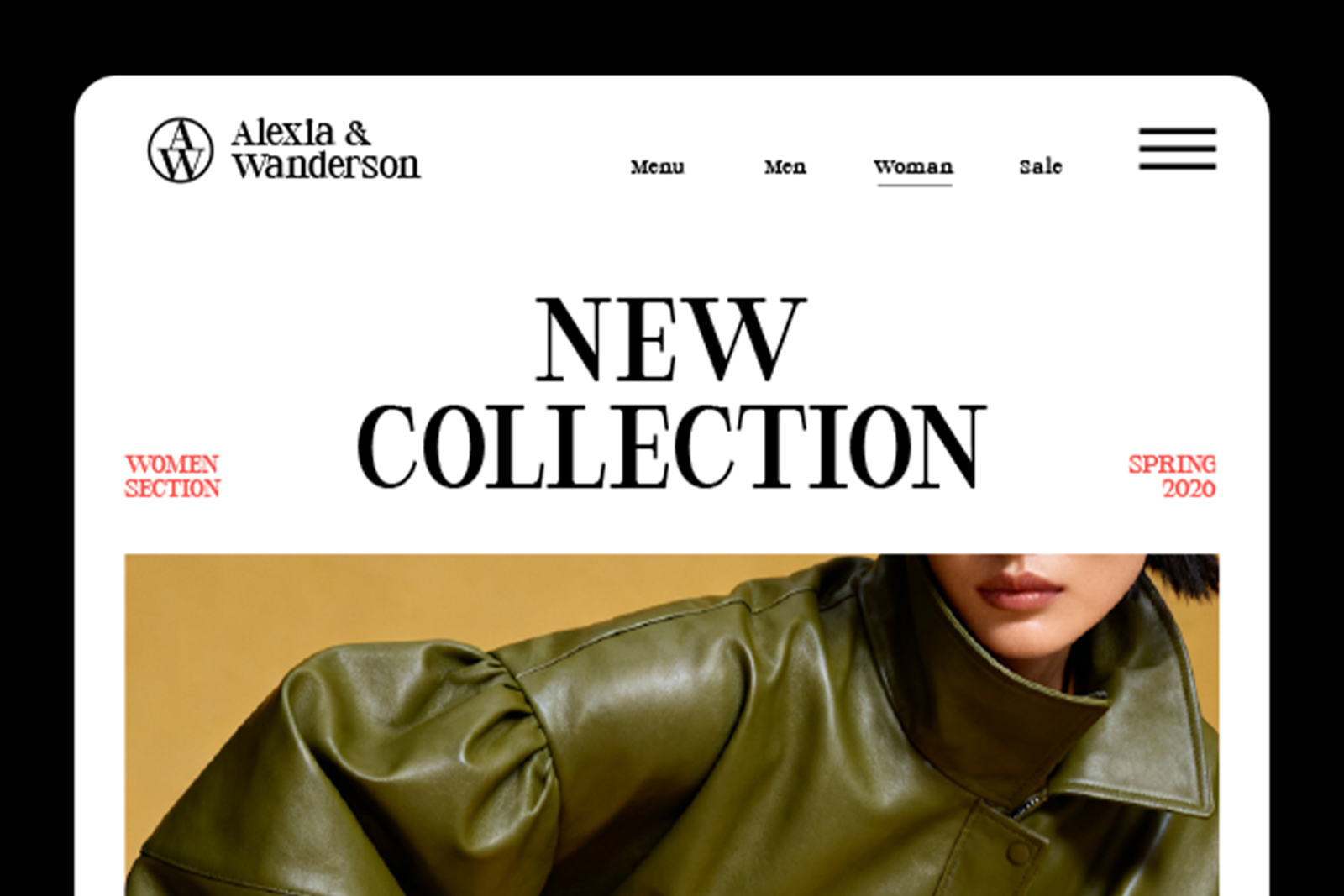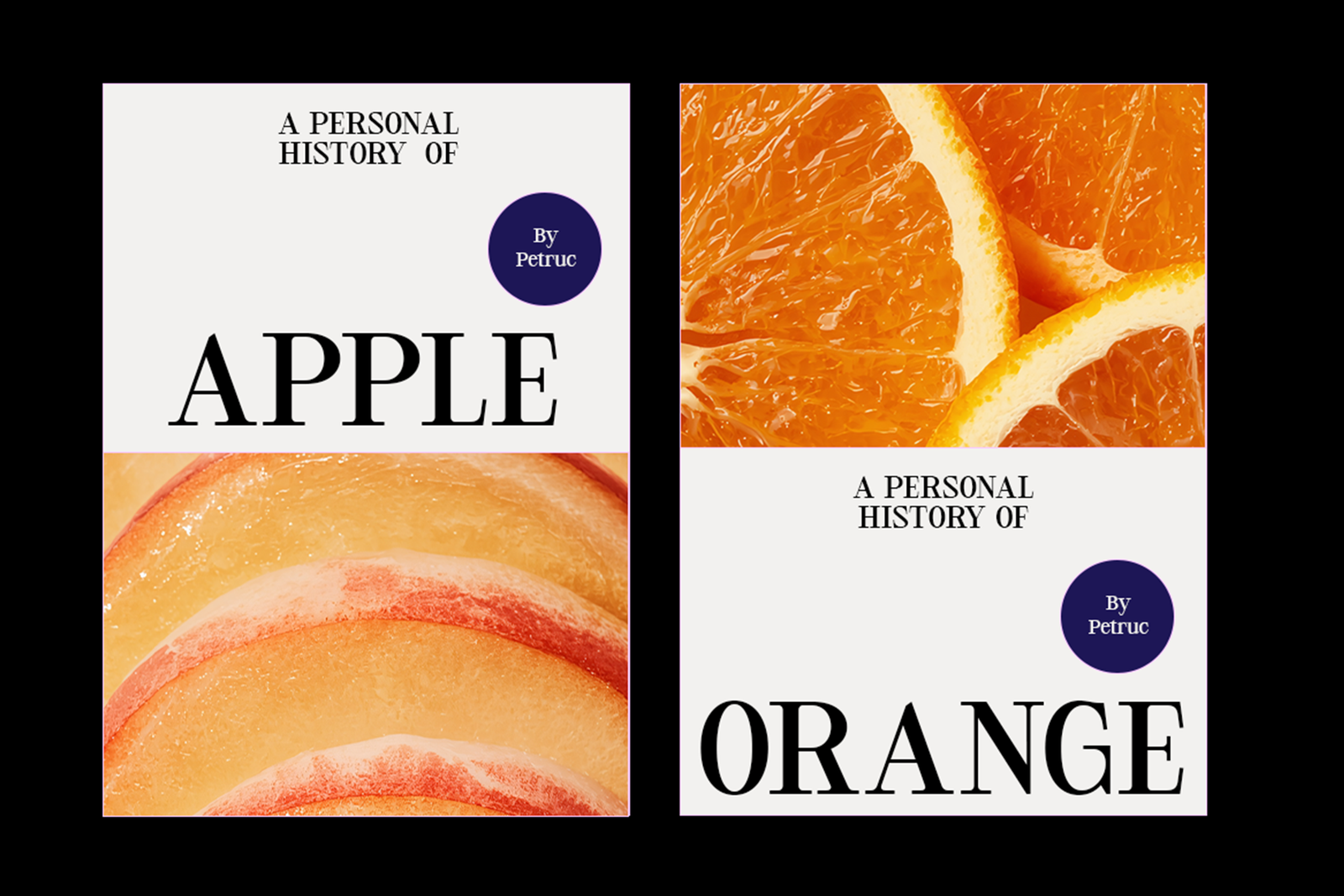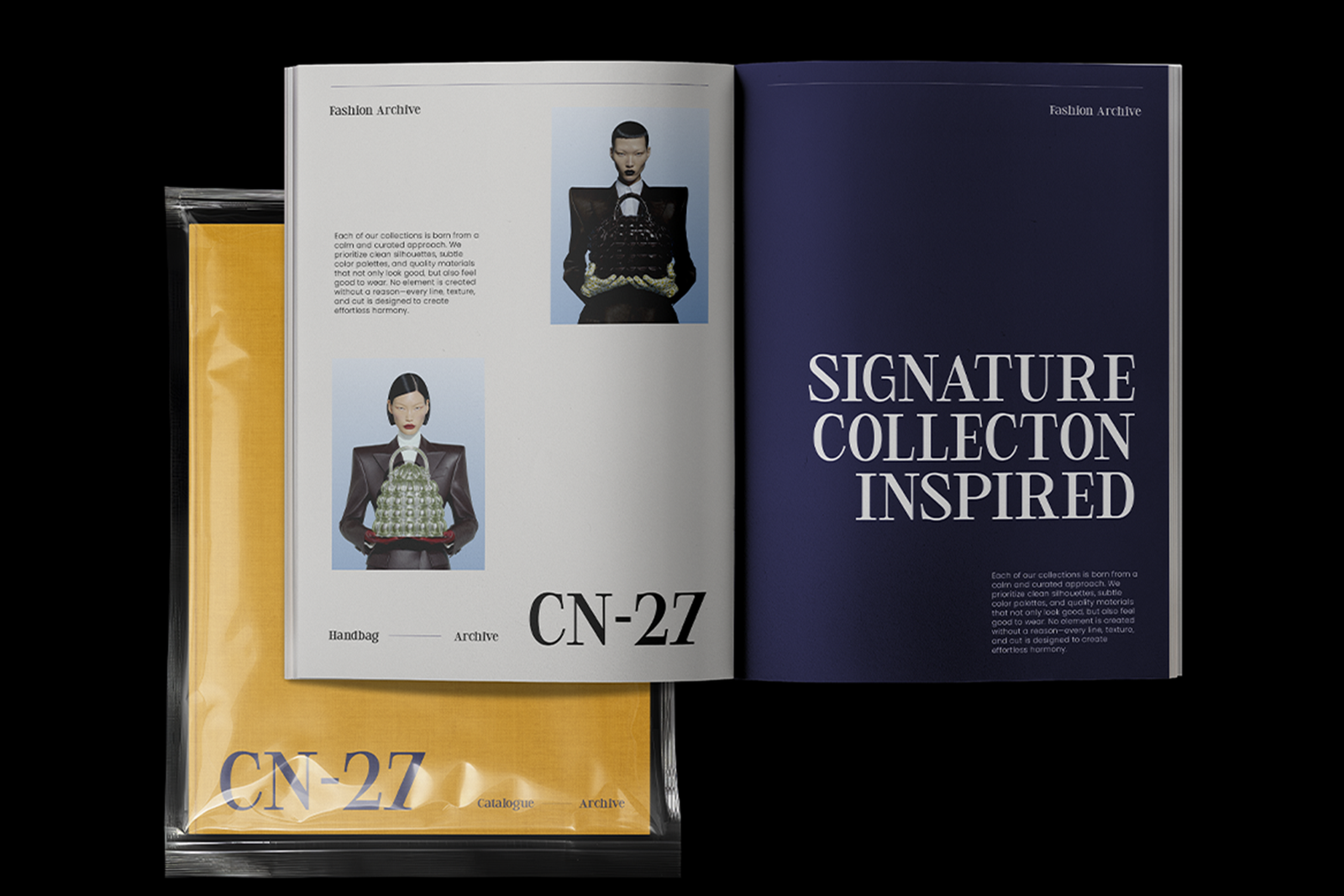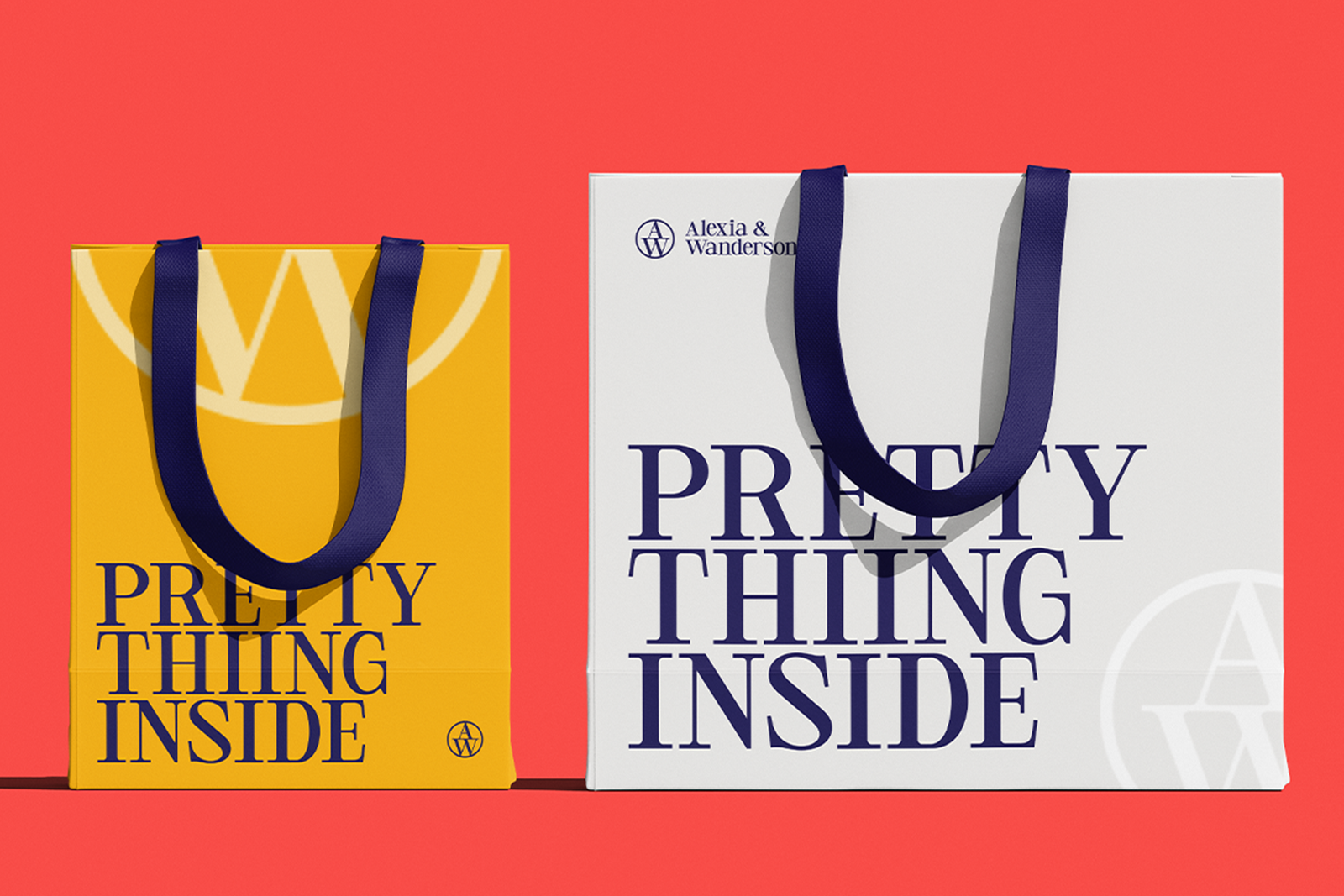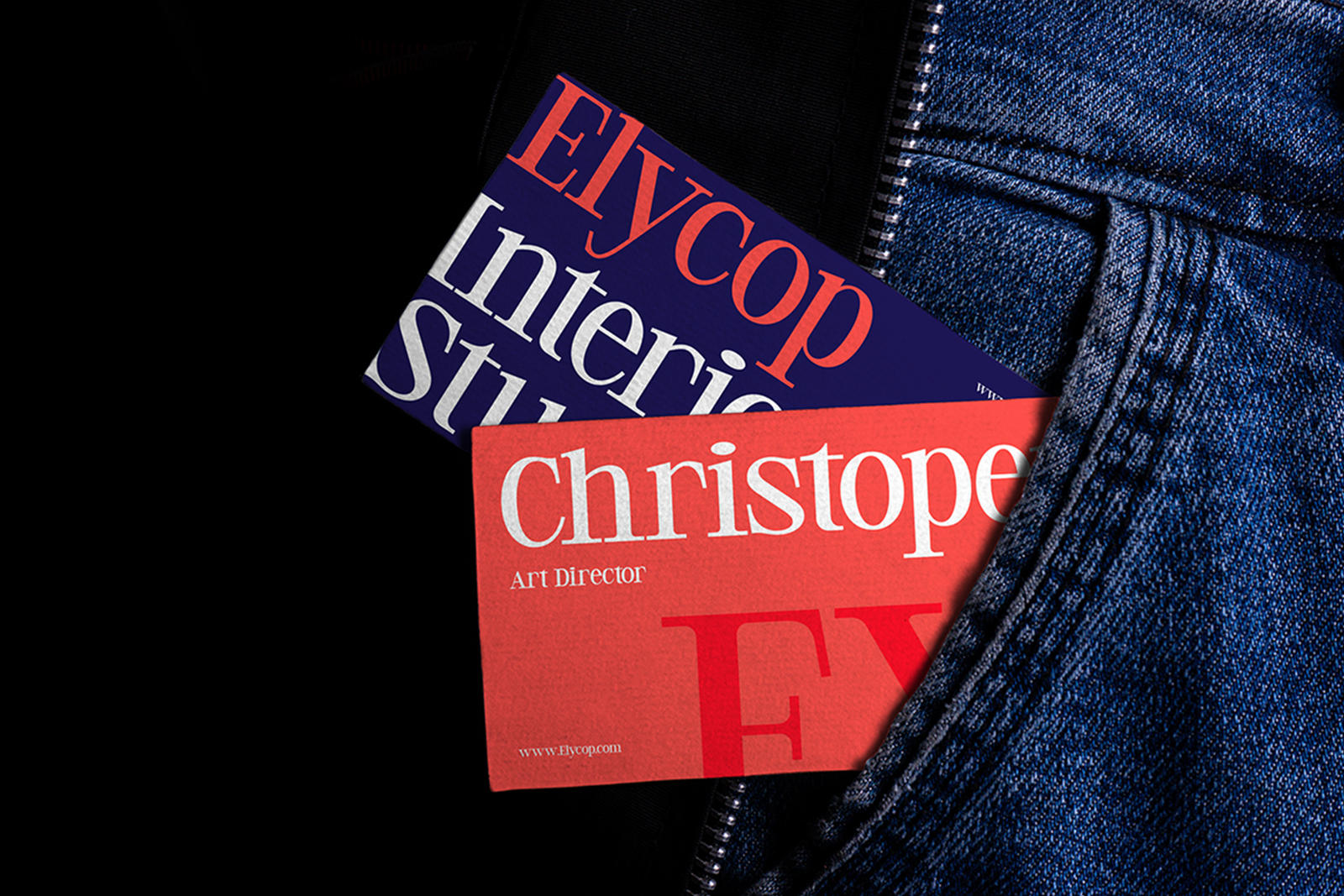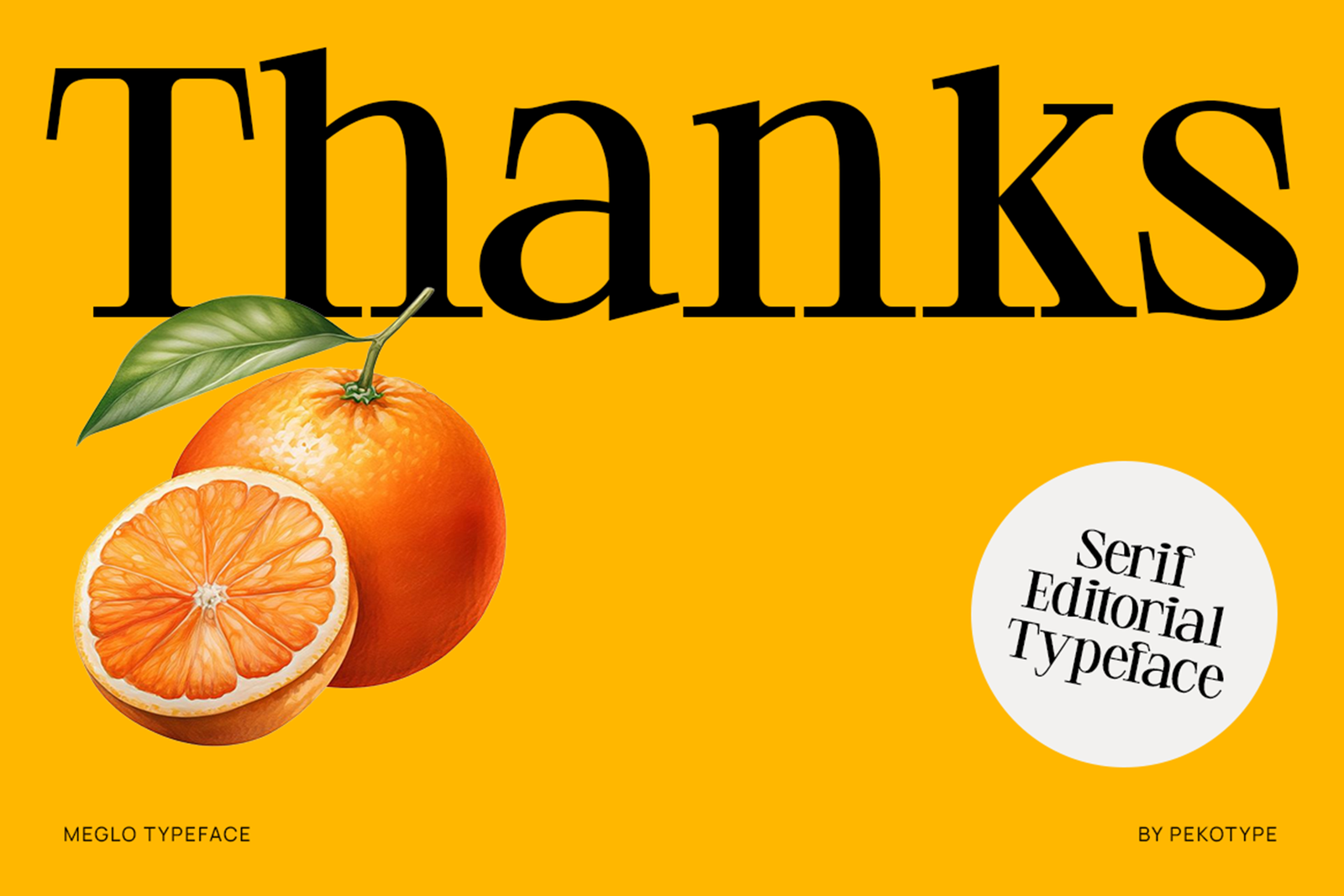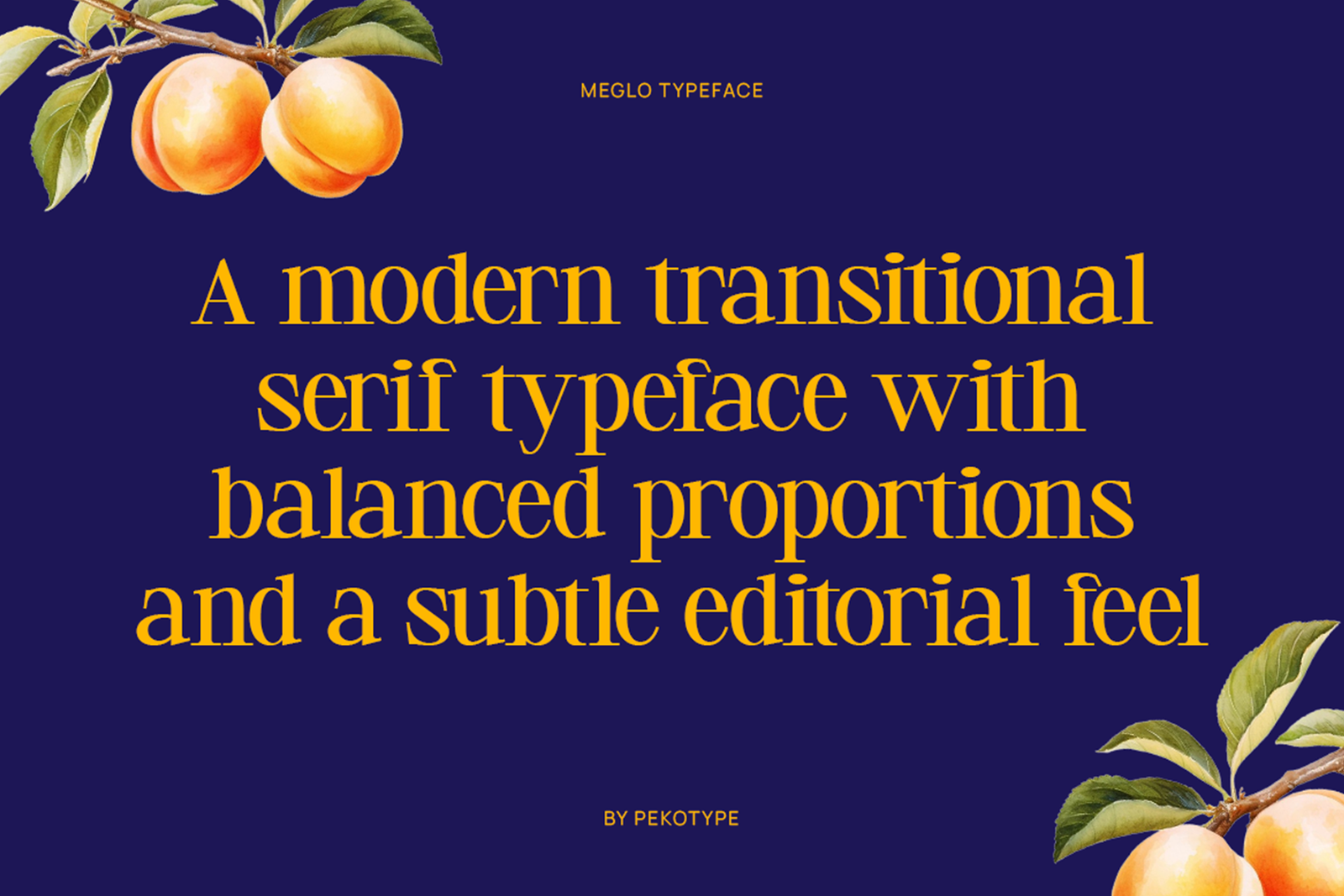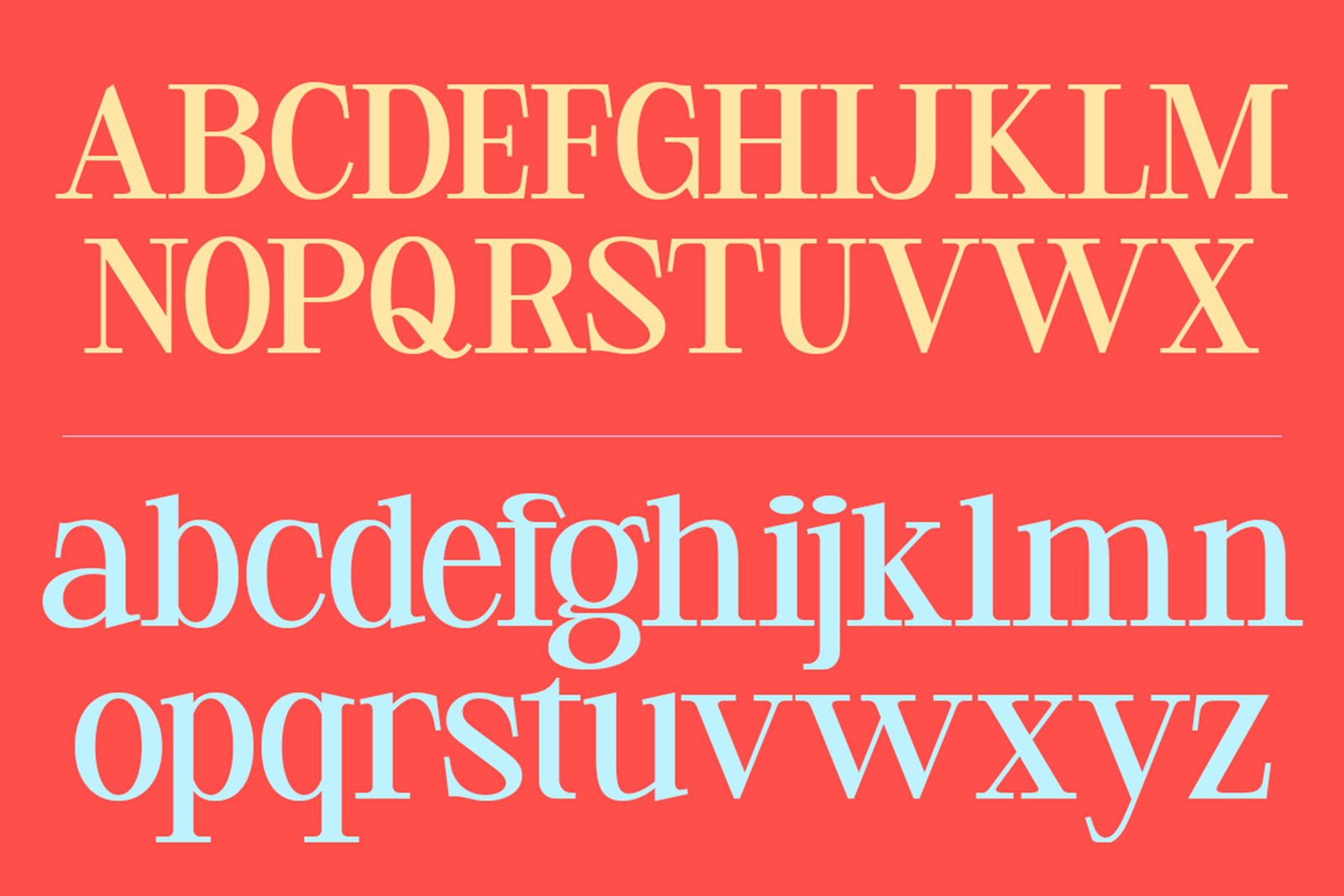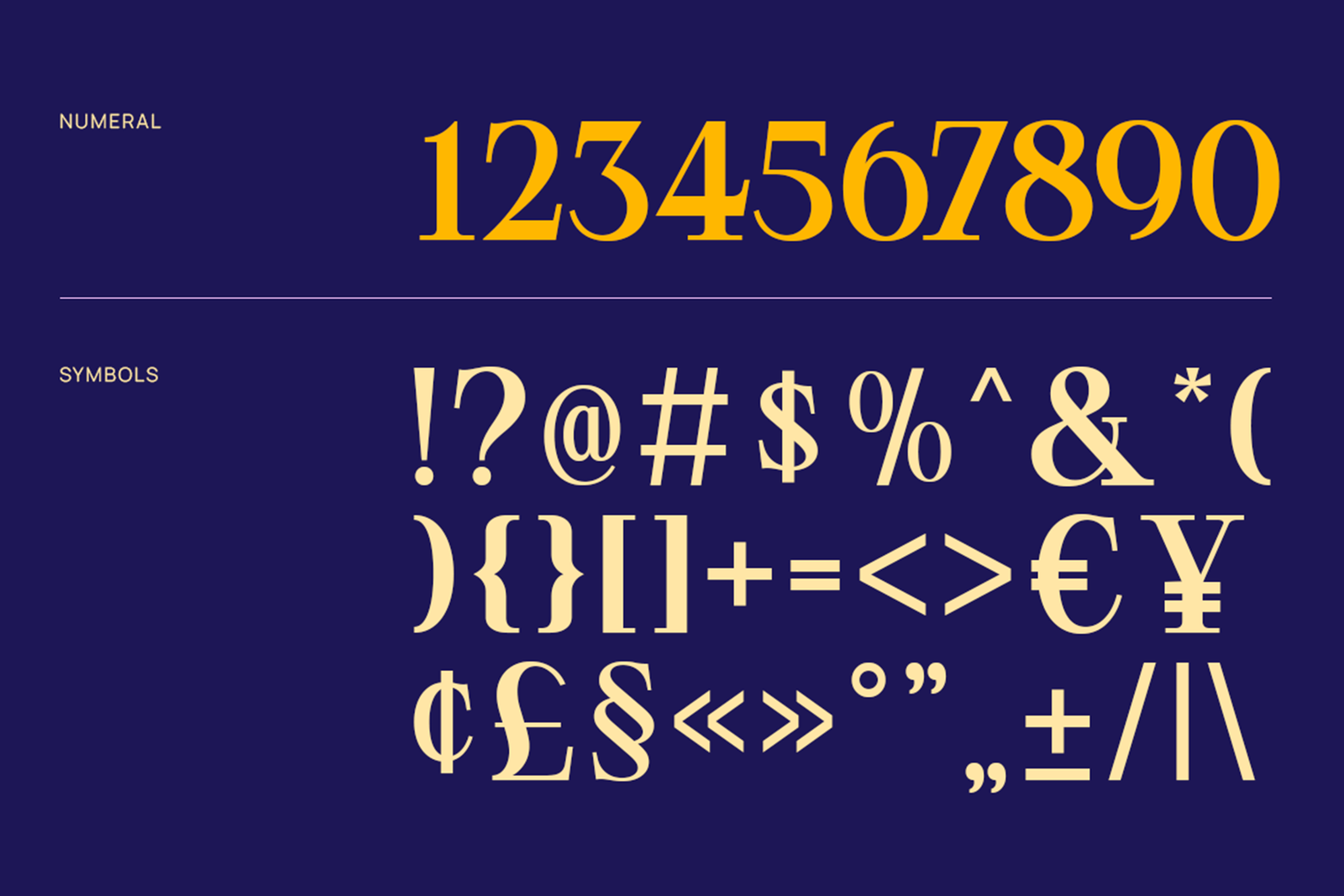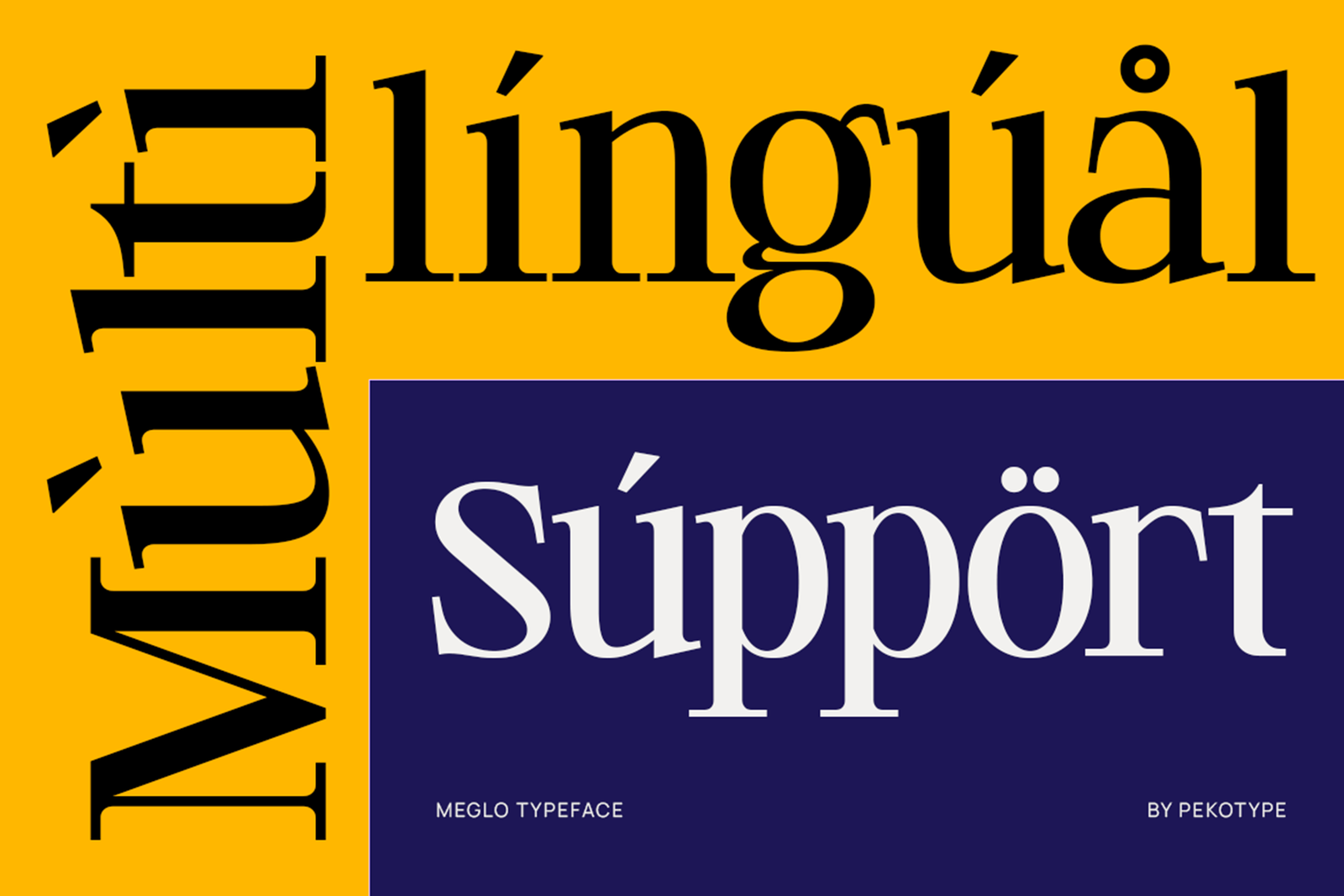
MEGLO Font is an elegant modern serif typeface with smooth curves and balanced letterforms. Perfect for branding, editorial design, packaging, logos, magazines, and premium creative projects.
MEGLO Font – Elegant Modern Serif Typeface
MEGLO Font is a modern serif typeface with an elegant and clean appearance. Designed with smooth curves, balanced proportions, and stylish letterforms, this font brings a classy editorial feel to any design project. Its timeless character blends modern simplicity with a subtle vintage touch, making it versatile for various creative needs.
Perfect for fashion branding, magazines, beauty products, packaging, logos, posters, book covers, and social media graphics. MEGLO also works beautifully for café branding, websites, editorial layouts, and luxury-inspired designs. Its refined details help create a professional and premium look while keeping the overall style approachable and easy to read.
The typeface includes uppercase and lowercase letters, numbers, symbols, punctuation, and multilingual support, allowing you to create complete visual identities across different projects. Whether used for headlines, brand names, product packaging, or promotional materials, MEGLO adds a sophisticated and memorable touch.
Features:
• Uppercase & Lowercase Letters
• Numbers, Symbols & Punctuation
• Multilingual Support
• Modern Serif Style
• Elegant Editorial Appearance
MEGLO Font is a great choice for designers who need a stylish, versatile, and timeless serif typeface for branding, editorial, packaging, and creative projects.